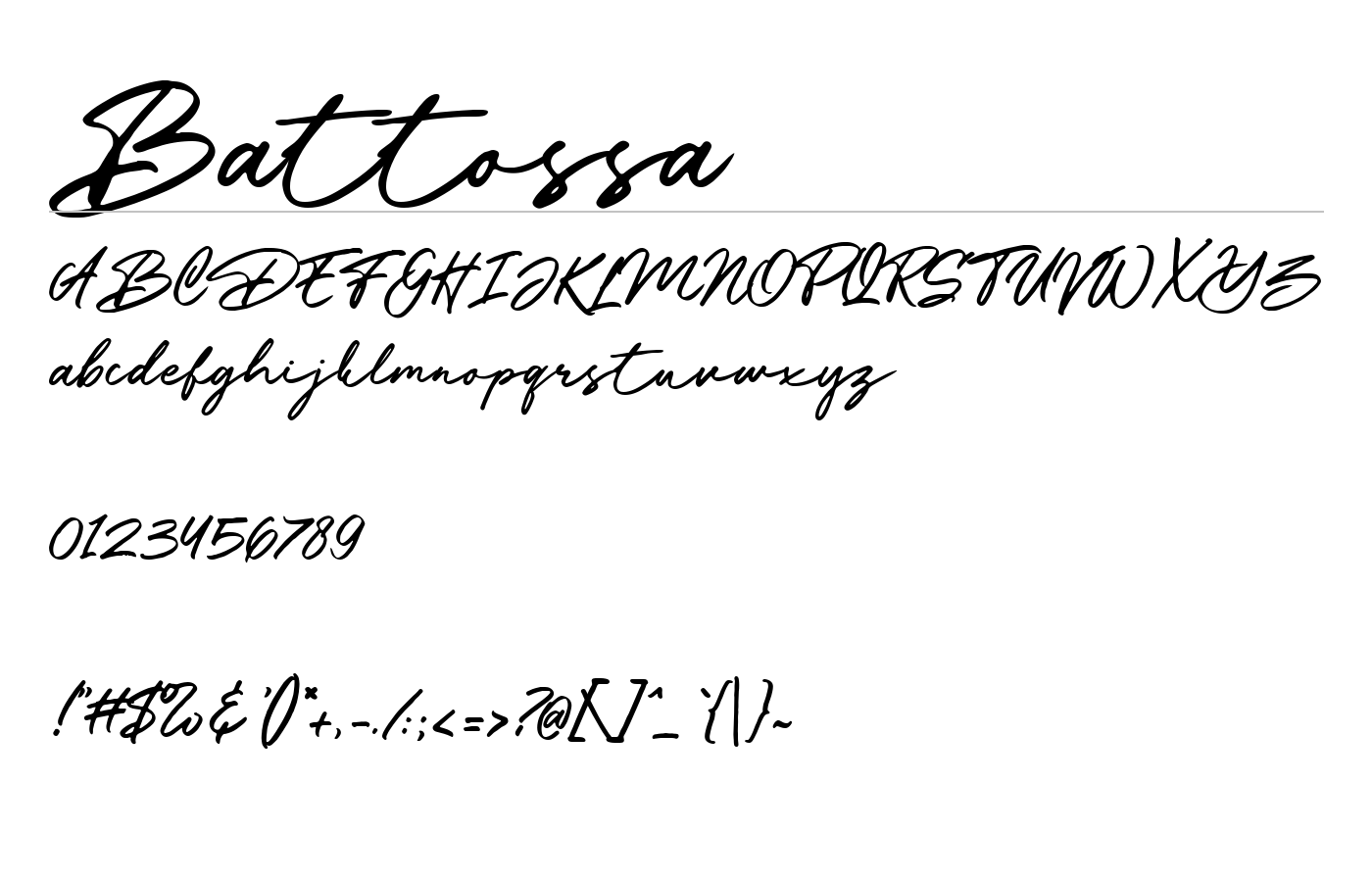
Battossa is a stylish, modern script font with a natural, handwritten feel that combines smooth, fluid strokes with a lively rhythm. Its medium weight and slightly condensed forms make it perfect for adding a personal yet elegant touch to branding, invitations, and headlines where a friendly and artistic vibe is desired. This font works beautifully for projects that want to express creativity and warmth without sacrificing readability or sophistication.
Battossa Font
About Battossa Font